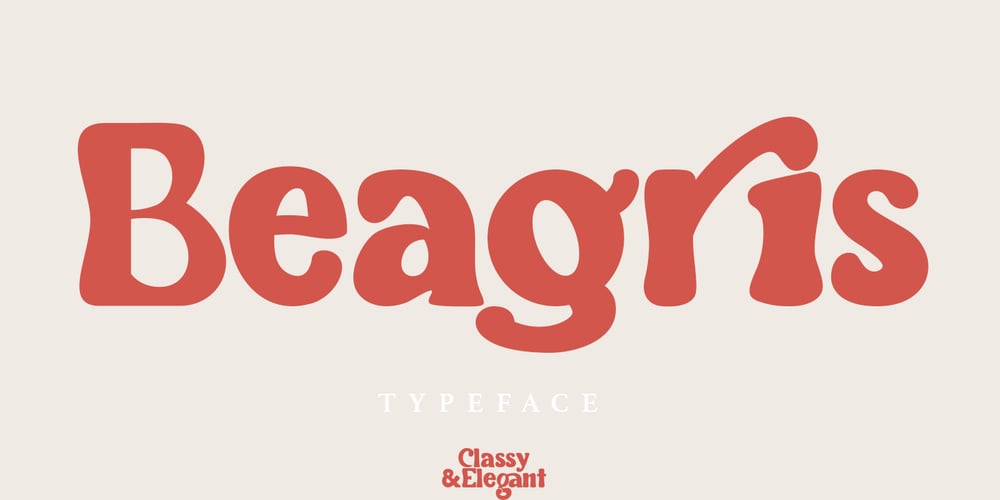
Beagris Font Family was designed by Asep Rendi and published by Arendxstudio. Beagris contains 2 styles and family package options. Introducing my new font – BeagrisBeagris is a modern typeface with a very unique alternate and ligatureBeagris came with opentype features such stylistic alternates, stylistic sets & ligatures good for logotype, poster, badge, book cover, tshirt design, packaging and any more.Features :-Uppercase & Lowercase -Multilingual support -Number, -Symbol -Punctuation. -Support in Mac and Windows OS -Support in design application (photoshop, illustrator, and more)There it is! I really hope you enjoy it – comments & likes are always welcome and accepted. More importantly, don’t hesitate to send a message if you have a problem or question.